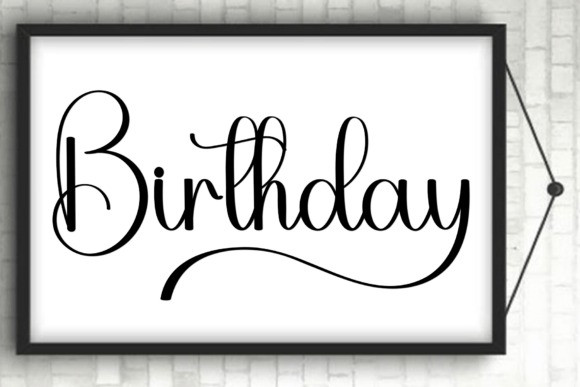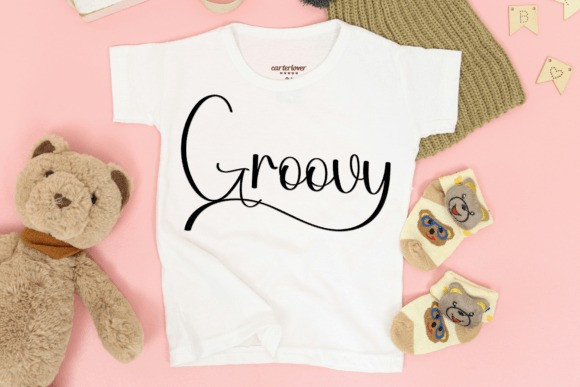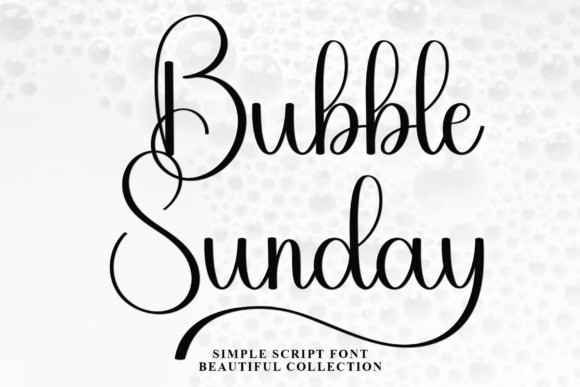
Bubble Sunday Font
Bubble Sunday Font is a lovely and timeless handwritten font. It is the best choice for creating eye catching logos, branding and quotes. Every letter has a unique and beautiful touch, which will make your design come alive!